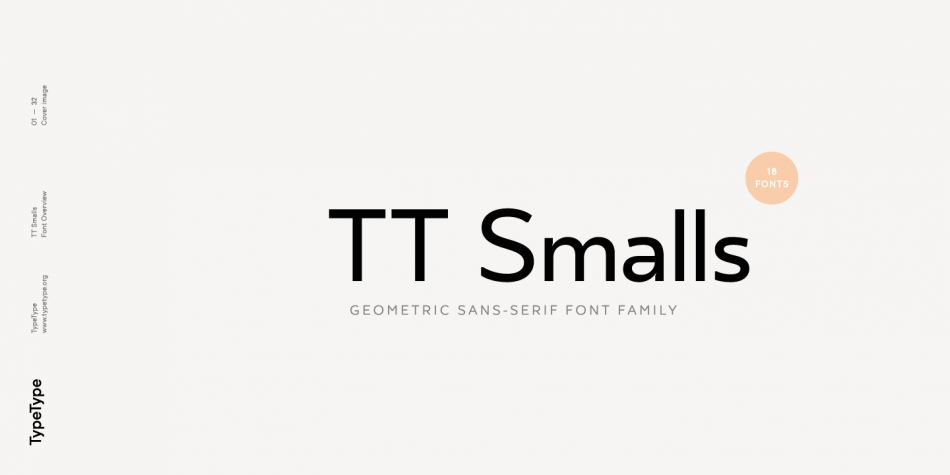
| Designed by TypeType Team, Nadezhda Polomoshnova and Phillip Nurullin, TT Smalls is a sans serif font family. This typeface has eighteen styles and was published by Typetype. |
TT Smalls is a geometric sans serif created for use in video clips and for video production.
The main feature of the font family is the big difference between the uppercase and lowercase characters, in which we intentionally diminish the x-height.
At the same time, in order for signs to be readable and balanced, the font uses pronounced visual compensators and a large letter spacing.
In the typeface there is a decorative set of alternative characters that covers the uppercase Latin alphabet, uppercase Cyrillic alphabet, and standard figures.
As the thickness of the strokes decreases, the number of layer lines in the design of the letter decreases.
For example, in the Black weight, the design in an alternative decorative set consists of 4 layers-lines, and in Thin already only of one line.
In order to simplify the access to this special set, we have programmed it for the SMCP (small caps) feature.
You just need to turn it on. Especially for video production we have prepared a set of particular catchwords that are included in each font, and whose height corresponds to the x-height of the lowercase sign.
For catchwords output, you need to type a special combination of characters. For example, to get the AKA catchword, you need to type one of the following combinations: a+k+a, or A+K+A, or a_k_a, or A_K_A.
Using any of these combinations will make the catchword appear. It is important to note that for successful use of catchwords, the feature calt (contextual alternates) must be permanently turned on.
The TT Smalls font family consists of 18 fonts: 9 weights and 9 italics.
The family has a set of stylistic alternatives, which make the typeface a bit more humanist when turned on.
TT Smalls features 16 ligatures, including several Cyrillic, old-style figures, a set of navigational arrows.
In addition, TT Smalls supports a large number of other useful OpenType features such as case, ordn, sups, sinf, dnom, numr, onum, tnum, pnum, calt, frac.